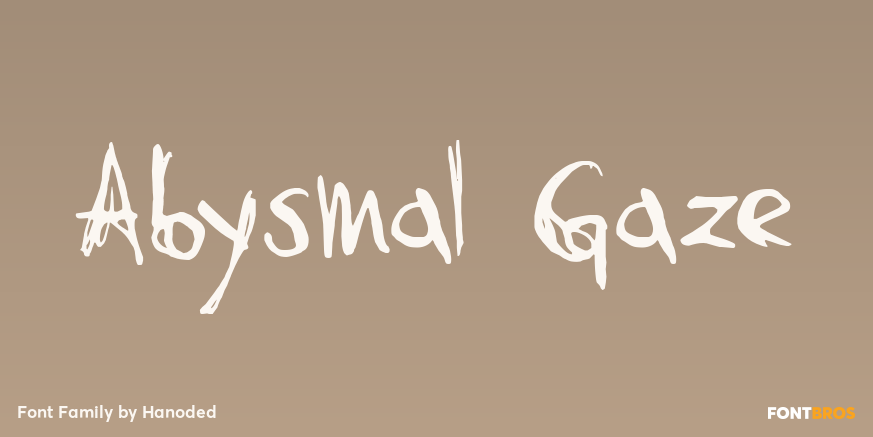
HomeFont BrosHandwrittenAbysmal Gaze HandwrittenSpecial EffectWacky Abysmal Gaze FacebookXPinterestWhatsApp 1 of 1 About Abysmal Gaze A trashy script with some surprising glyphs. It comes with a full range of accents.  DOWNLOAD ON FONT BROSThis font is sold and delivered by Font Bros. Font Canyon may earn a commission if you buy through this link. People also explored Butter Sugar Font Bellinzo Font Baby Bee Font Lariess Font Miodrag Font Metinoline Script Font Minimallove Font The Big Battalyon Font Palm Sugar Font 238 0 TagsAbysmal Gaze Font Previous articleVolsteadNext articleRegister B LEAVE A REPLY Cancel reply Comment: Please enter your comment! Name:* Please enter your name here Email:* You have entered an incorrect email address! Please enter your email address here Website: Save my name, email, and website in this browser for the next time I comment. Personal Use Free Omira Personal Use Free Read more about this font Squealer Personal Use Free Read more about this font Dandelions Bloom Personal Use Free Read more about this font Sweet Cake Personal Use Free Read more about this font BLOG Best Fonts for YouTube Videos: Make Your Thumbnails Stand Out Best Fonts for YouTube Videos: Make Your Thumbnails Stand Out Choosing the right font can make a massive difference in how your YouTube videos perform.... How to Install and Use Fonts on Windows, macOS, and Web Projects Free vs Paid Fonts: Why Investing in Premium Fonts Is Worth It To increase your work productivity, choose the most readable fonts.